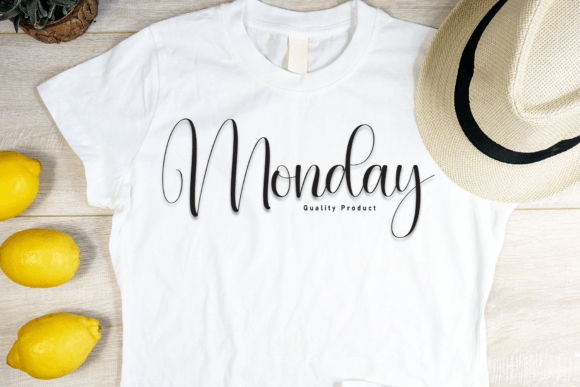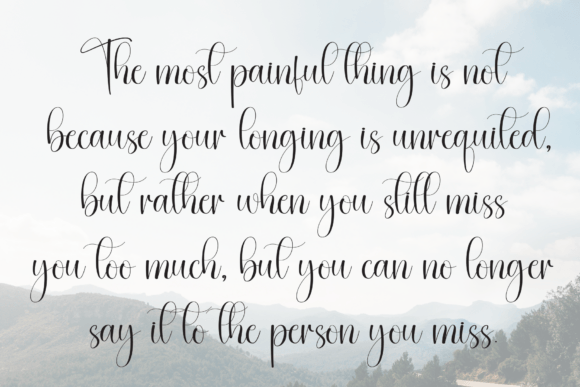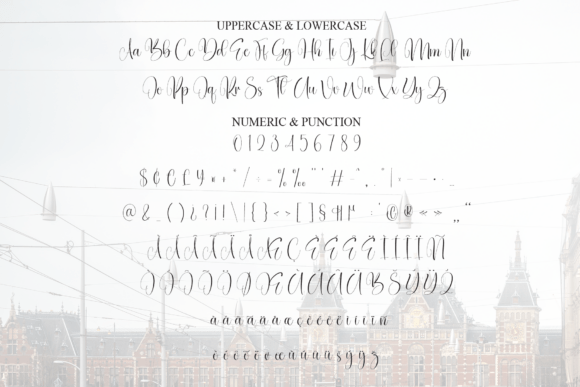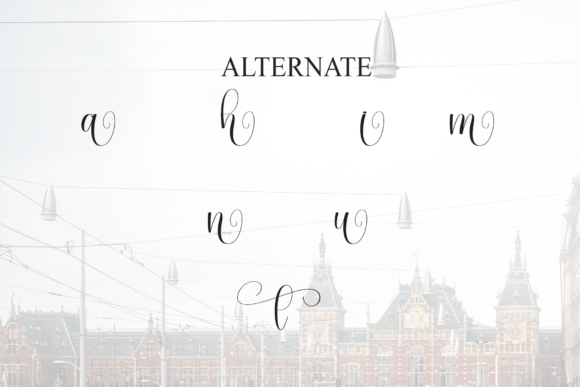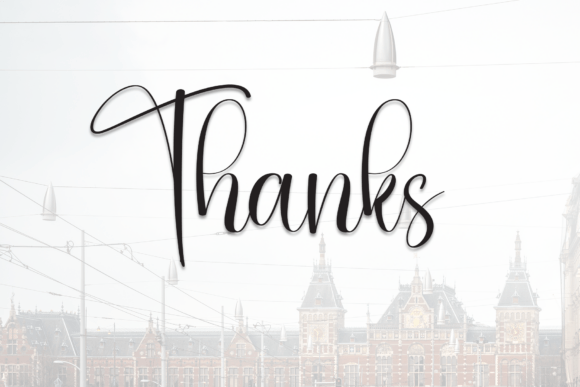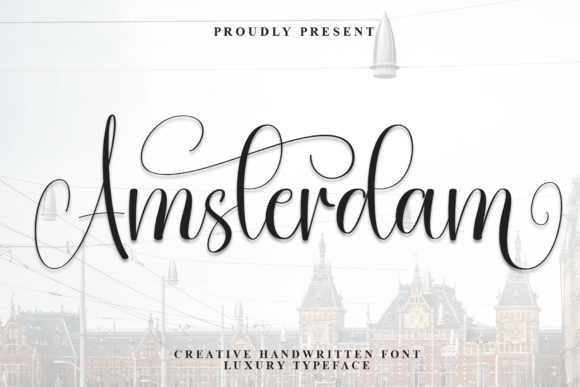
Introducing Amsterdam Font: Elevate Your Designs with a Stylish Handwritten Script
Are you on the lookout for a font that adds a touch of elegance and personality to your designs? Look no further than the Amsterdam Font. This stylish handwritten script font is perfect for designers and crafters seeking to infuse their projects with a casual yet sophisticated feel. With its smooth, flowing letters, Amsterdam Font is ideal for a wide range of creative endeavors, from personal projects to professional designs.
The Characteristics of Amsterdam Font
Amsterdam Font boasts a unique set of characteristics that set it apart from other fonts. Its smooth, flowing letters are easy to read, giving it a natural, handwritten look that’s both effortless and elegant. The font’s casual feel makes it perfect for designs that require a personal touch, while its sophisticated undertones ensure it remains suitable for more formal projects.
Key Features of Amsterdam Font
• Smooth, flowing letters: Amsterdam Font’s letters are designed to flow seamlessly into one another, creating a beautiful, handwritten effect.
• Casual yet elegant feel: This font strikes the perfect balance between casual and elegant, making it suitable for a wide range of designs.
• Easy to read: Despite its handwritten nature, Amsterdam Font remains easy to read, ensuring your message is communicated clearly.
• Natural, handwritten look: The font’s natural, handwritten appearance adds a touch of personality to your designs.
Uses for Amsterdam Font
Amsterdam Font’s versatility makes it suitable for a variety of projects, including:
• Personal projects: Add a touch of elegance to your personal designs, such as invitations, greeting cards, or social media graphics.
• Creative designs: Use Amsterdam Font to add a unique, handwritten feel to your creative designs, such as branding materials, packaging, or advertising.
• Digital content: Elevate your digital content, such as blog posts, social media updates, or email newsletters, with Amsterdam Font’s stylish, handwritten look.
Tips for Using Amsterdam Font
To get the most out of Amsterdam Font, consider the following tips:
• Use it sparingly: Amsterdam Font’s elegance lies in its subtlety, so use it sparingly to avoid overwhelming your design.
• Pair it with complementary fonts: Combine Amsterdam Font with complementary fonts to create visual interest and add depth to your design.
• Experiment with colors and textures: Amsterdam Font’s versatility extends to its color and texture options, so don’t be afraid to experiment and find the perfect combination for your design.
Amsterdam Font is a stylish handwritten script font that offers a unique blend of elegance and personality. Its smooth, flowing letters and casual yet sophisticated feel make it perfect for a wide range of creative projects. Whether you’re a designer, crafter, or simply someone looking to add a touch of elegance to your designs, Amsterdam Font is an excellent choice. So why not give it a try and see how it can elevate your designs?
With Amsterdam Font, you can add a touch of sophistication and whimsy to your designs, making it perfect for anyone looking to create unique and eye-catching content. Its ease of use and versatility make it an excellent addition to any designer’s toolkit.